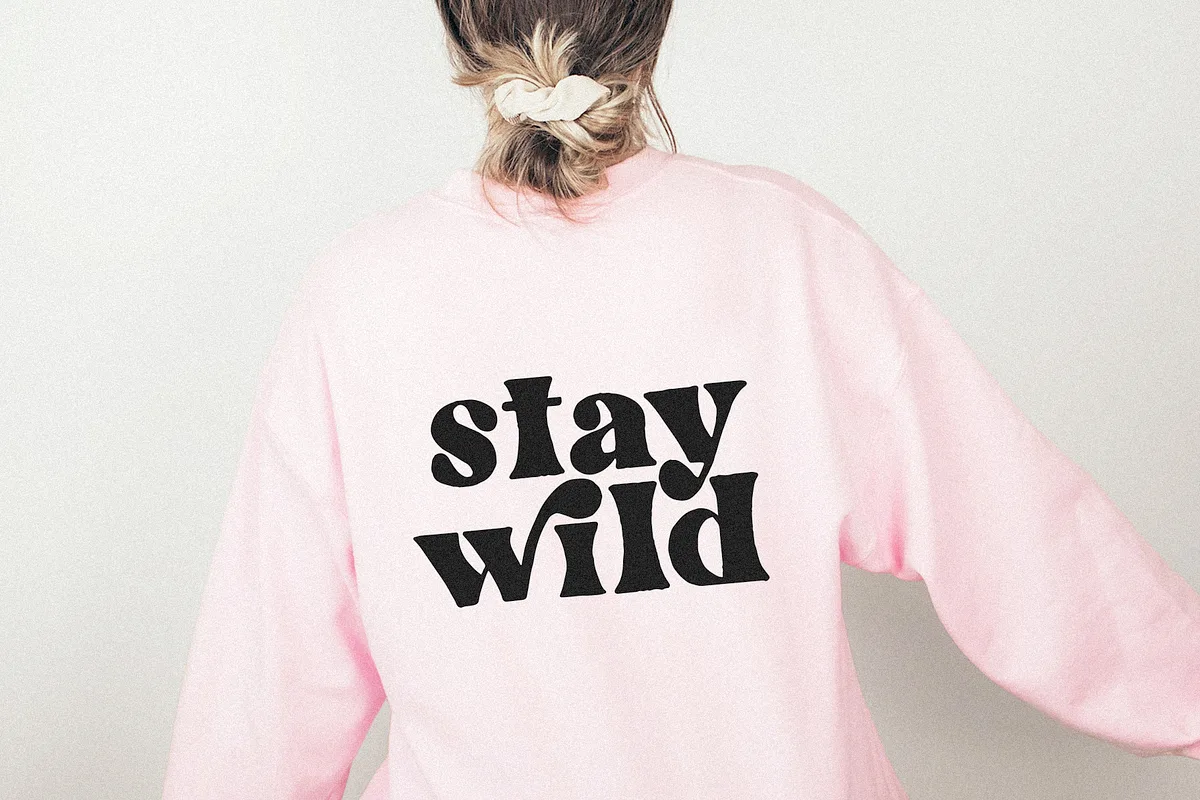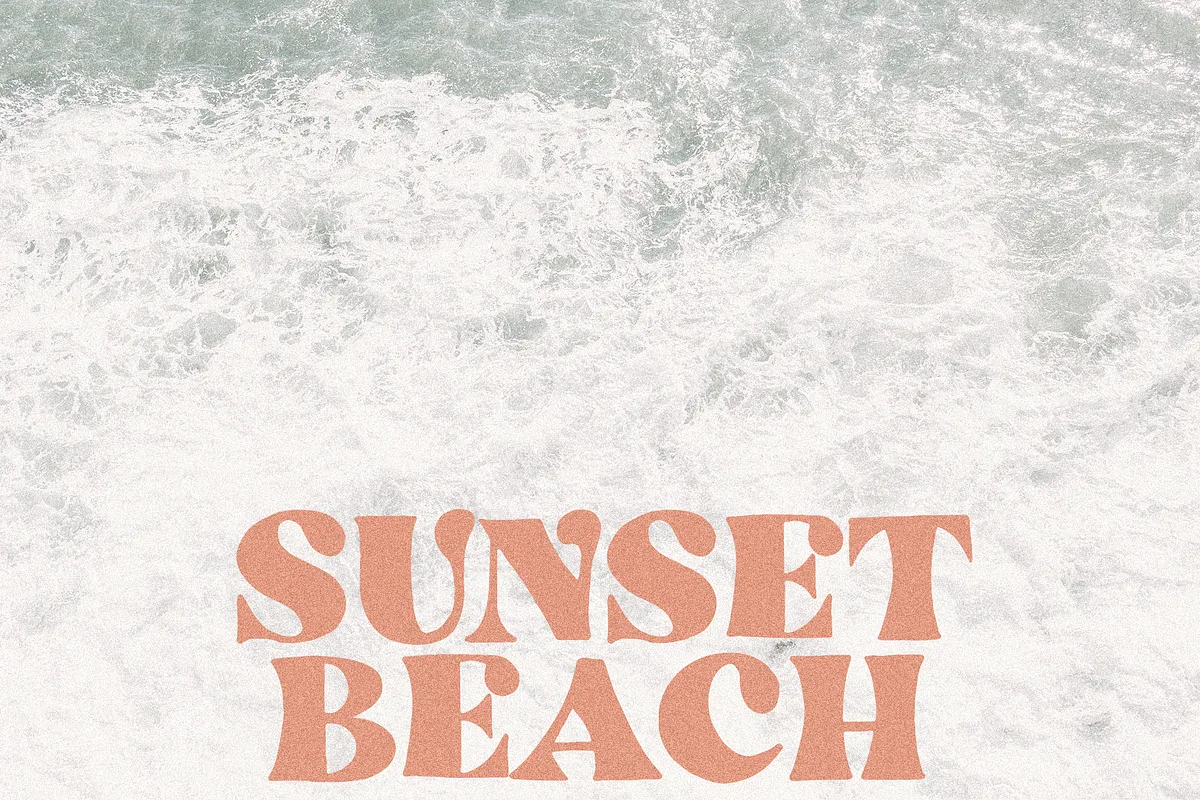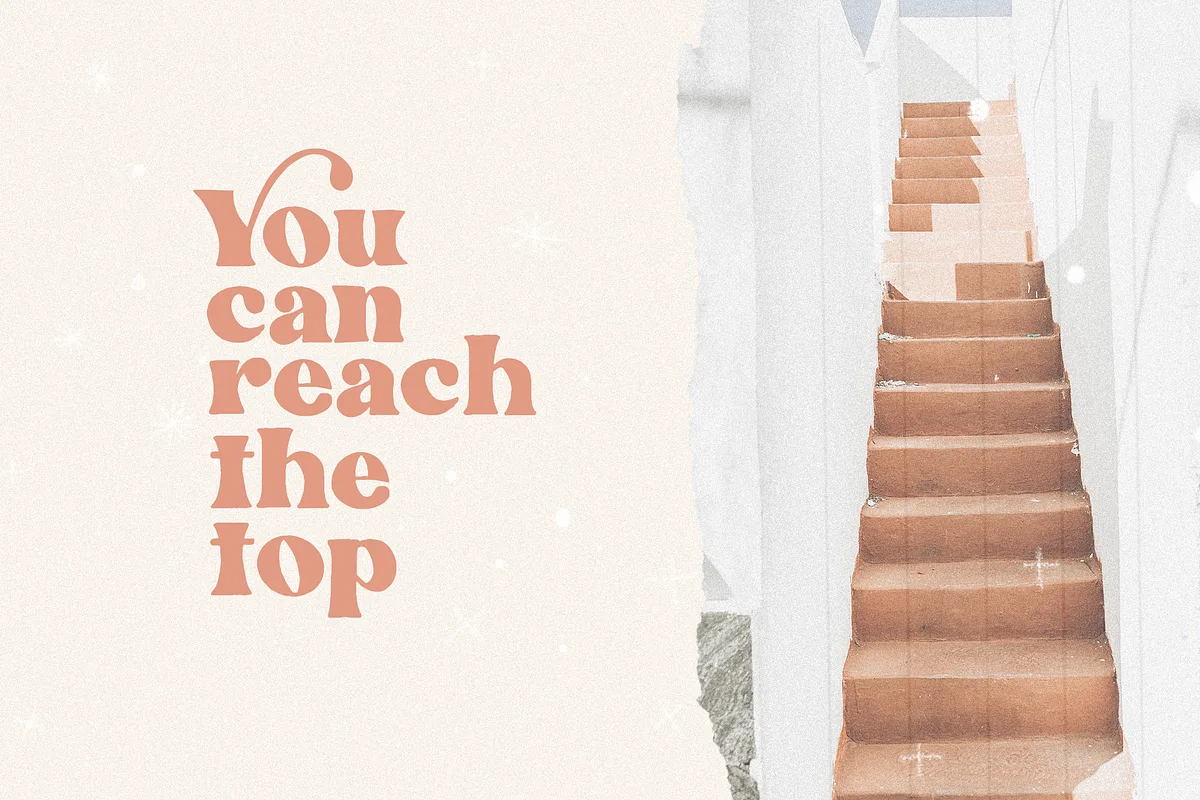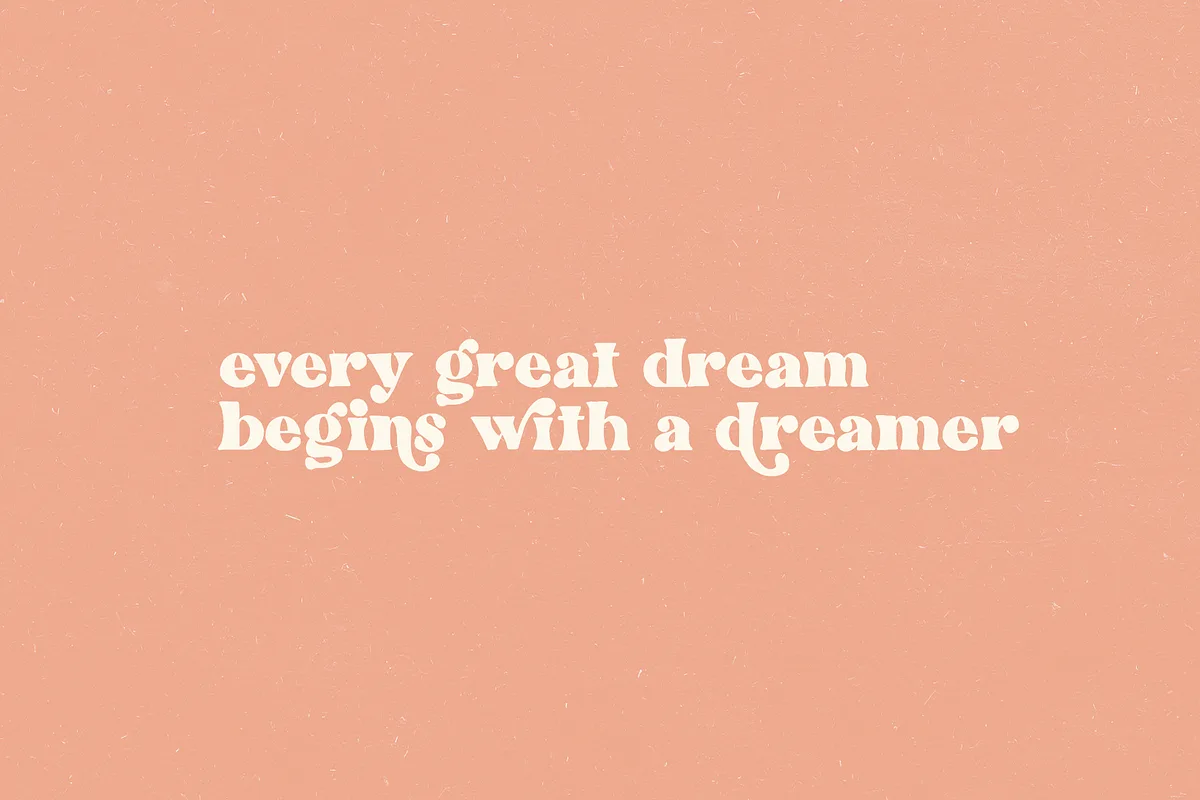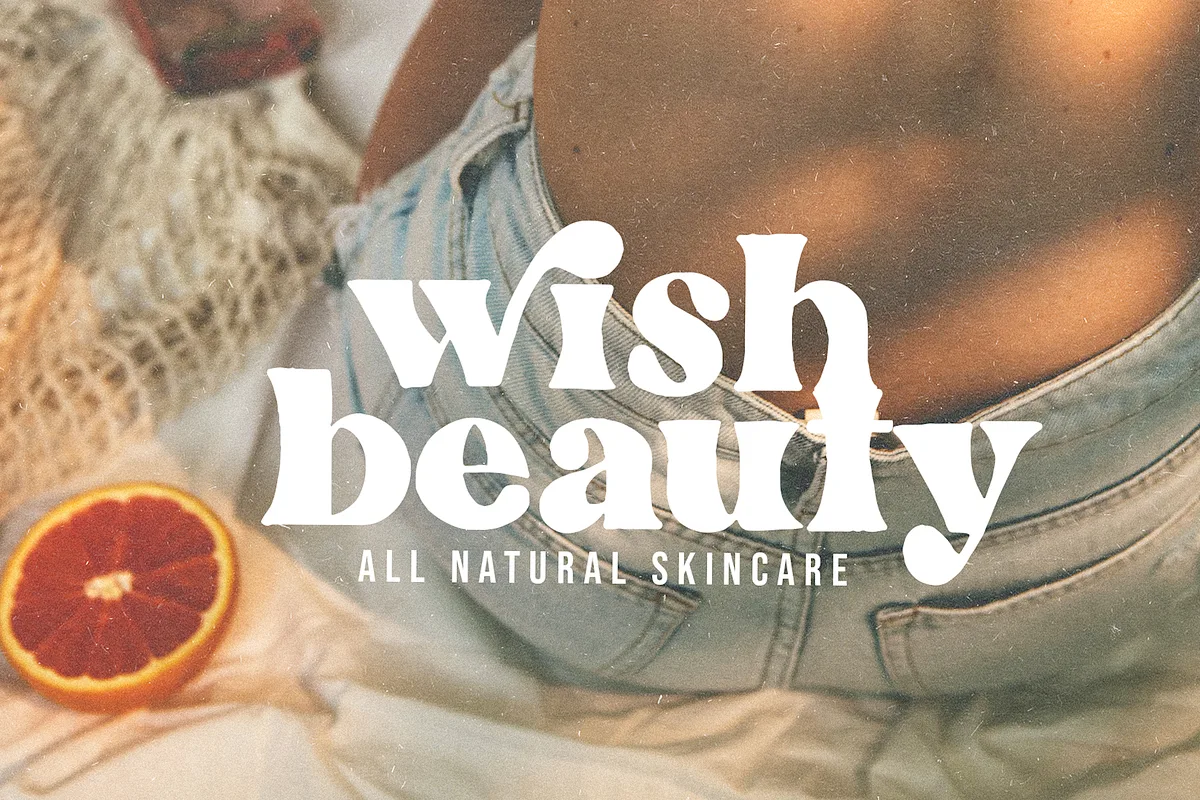
Wished is an imperfect, hand-drawn serif font. It has a modern look with a free-spirit touch. There is a fun set of alternative letters to play with as well! It is perfect for branding, logos, initials, invitations, blogs, social media and more!
Wished Hand-drawn Serif Font